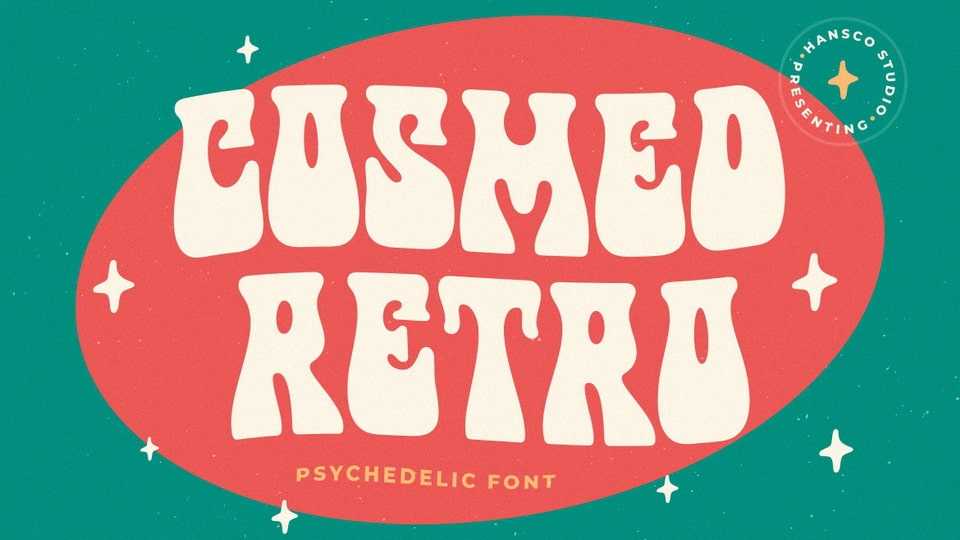
Download Cosmed Retro font, a bold psychedelic typeface with a wavy look and vintage vibe. Use this display font to add that special retro touch to any design idea you can think of!
Designer: HansCo